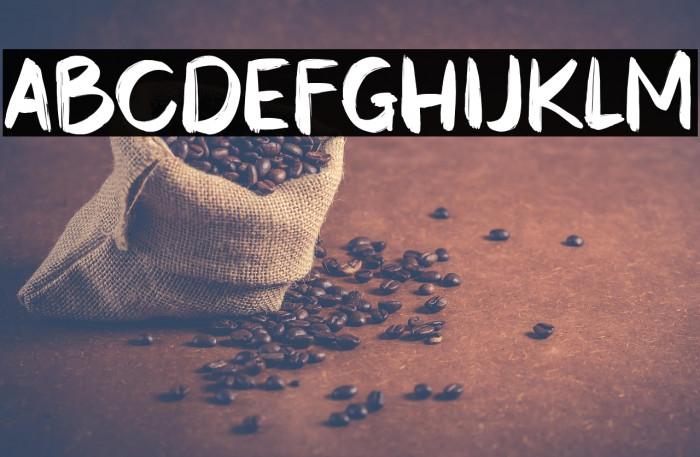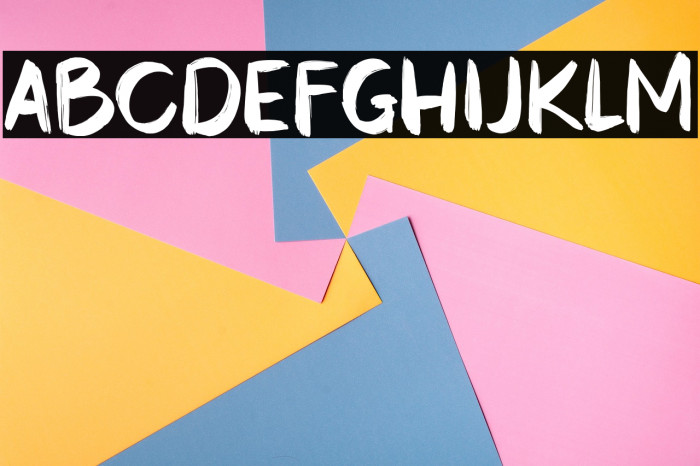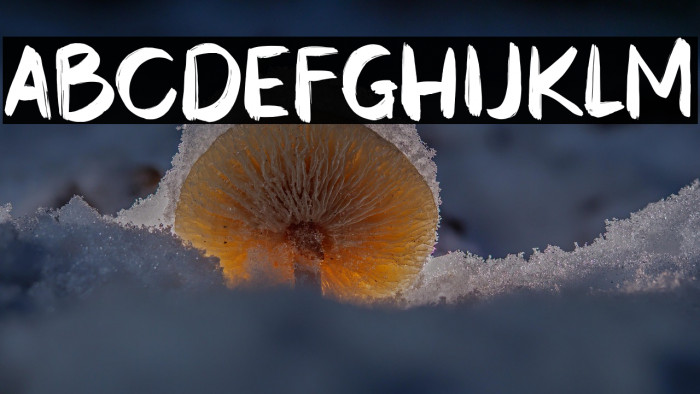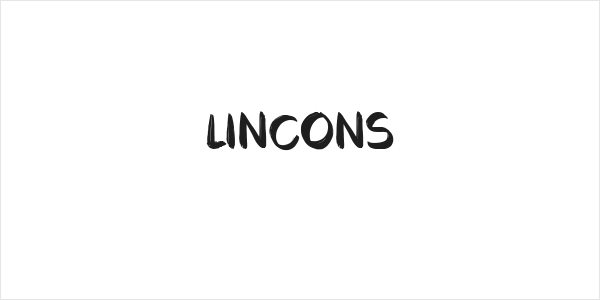
LINCONS Font
LINCONS Description
This font features a bold, brush-stroke style that exudes energy and dynamism. The characters are crafted with a hand-painted appearance, giving each letter a unique and organic feel. The strokes are thick and uneven, adding to the font's expressive and artistic nature. The uppercase and lowercase letters maintain a consistent style, while the numbers and special characters complement the overall design. This font is perfect for projects that require a personal touch or a creative flair.
| Use Case | Logos, Headlines, Posters |
| Proposed Projects | Ideal for posters, artistic branding, event invitations, and creative social media graphics. |